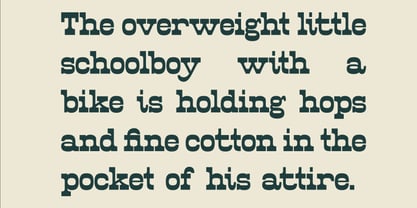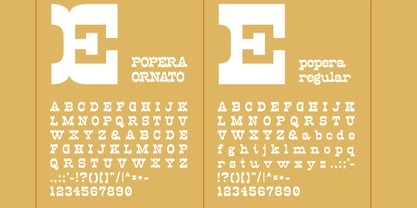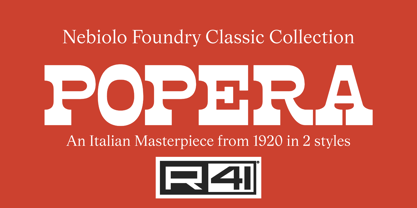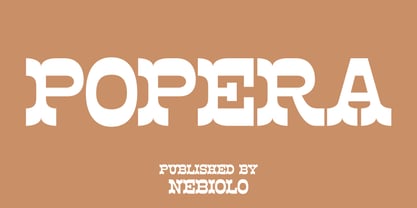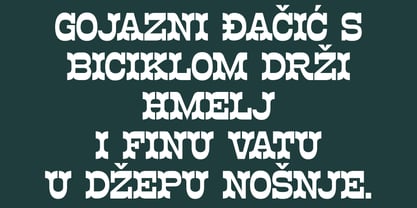
R41 Popera
The R41 Popera Font Family was designed by Ariel Brandolini, Daniele Medina and published by Reber R41. R41 Popera contains 2 styles and family package options. More about this family
R41 Popera is based on a sample of wood display type manufactured by Nebiolo in Turin, originally shown in an undated specimen. R41’s digital interpretation breathes new life into the original fragment, featuring lively contextual alternates and a playful all-caps Ornato style with bifurcated serifs. This bold and playful slab serif can add whimsy to books, ads, posters, and more.